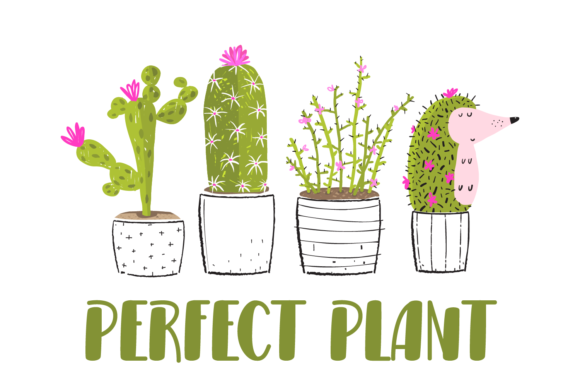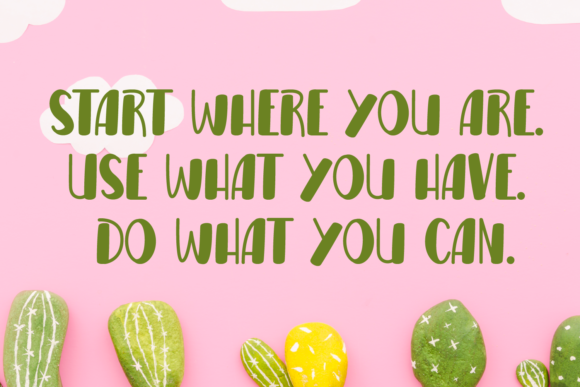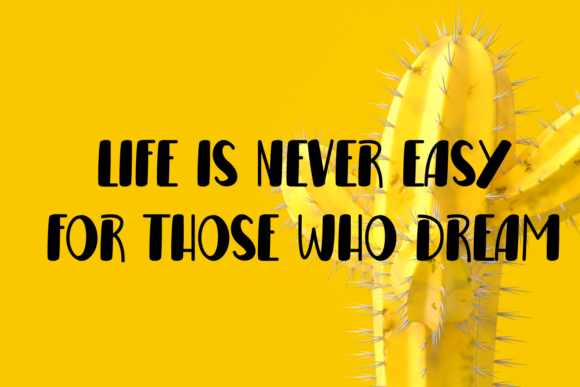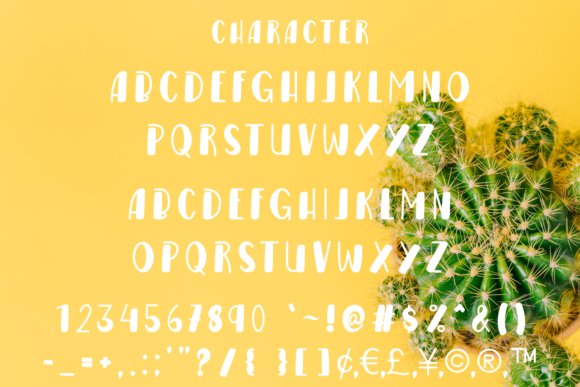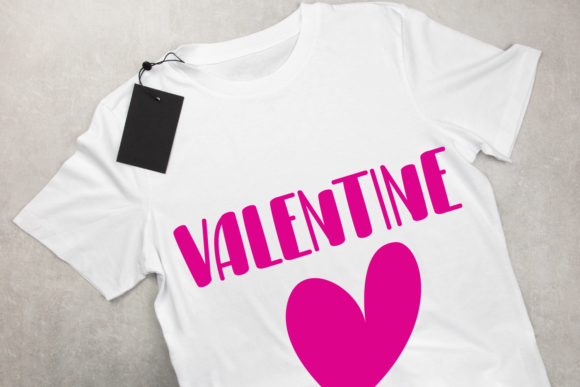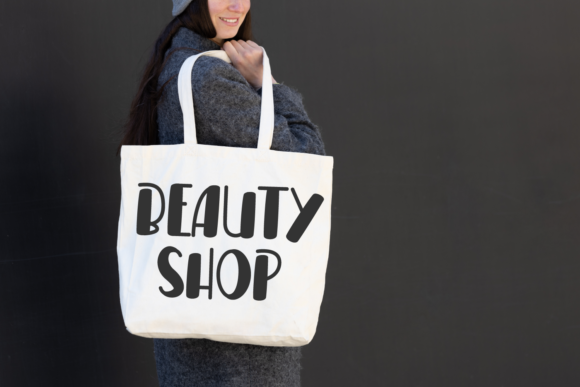
Cactus Morning Font: The Perfect Addition to Your Design Arsenal
Are you tired of using the same old fonts in your designs? Look no further than Cactus Morning Font, a fun, bubbly, and cool looking display font that’s sure to add a touch of playfulness and authenticity to your work. In this article, we’ll dive into the world of Cactus Morning Font and explore its features, benefits, and uses, particularly in children-themed designs.
What is Cactus Morning Font?
Cactus Morning Font is a display font designed to make a statement. Its unique and quirky style embodies the carefree spirit of a sunny morning, making it perfect for designs that require a playful and cheerful touch. The font’s bold and bubbly appearance is sure to grab attention and leave a lasting impression on your audience.
Key Features of Cactus Morning Font
- Fun and Playful: Cactus Morning Font is designed to bring a smile to your audience’s face. Its fun and playful style makes it perfect for children-themed designs, such as kids’ party invitations, educational materials, and more.
- Bold and Bubbly: The font’s bold and bubbly appearance makes it perfect for headlines, titles, and other display text.
- Authentic: Cactus Morning Font has a genuine and authentic feel to it, making it perfect for designs that require a personal touch.
- Versatile: The font is versatile and can be used in a variety of design projects, from digital to print.
Benefits of Using Cactus Morning Font
Using Cactus Morning Font in your designs can have several benefits, including:
- Adding a Touch of Whimsy: The font’s playful style can add a touch of whimsy to your designs, making them more engaging and fun.
- Standing Out from the Crowd: Cactus Morning Font’s unique style makes it perfect for designers who want to stand out from the crowd and create something truly memorable.
- Perfect for Children-Themed Designs: The font’s playful and cheerful style makes it perfect for children-themed designs, such as kids’ party invitations, educational materials, and more.
Using Cactus Morning Font in Your Designs
Cactus Morning Font is perfect for a variety of design projects, including:
- Kids’ Party Invitations: The font’s playful style makes it perfect for kids’ party invitations, adding a touch of fun and whimsy to your design.
- Educational Materials: Cactus Morning Font can be used in educational materials, such as worksheets, activity sheets, and more.
- Digital Designs: The font can be used in digital designs, such as social media graphics, blog posts, and more.
- Print Designs: Cactus Morning Font can be used in print designs, such as brochures, flyers, and more.
Tips for Using Cactus Morning Font
Here are some tips for using Cactus Morning Font in your designs:
- Pair it with Bright Colors: Cactus Morning Font looks perfect when paired with bright colors, making it perfect for children-themed designs.
- Use it as a Display Font: The font is designed to be used as a display font, making it perfect for headlines, titles, and other display text.
- Experiment with Different Sizes: Cactus Morning Font can be used in a variety of sizes, from small to large, making it perfect for a range of design projects.
Cactus Morning Font is a fun, bubbly, and cool looking display font that’s perfect for children-themed designs. Its playful and authentic style makes it perfect for adding a touch of whimsy to your designs. With its versatility and range of uses, Cactus Morning Font is a great addition to any designer’s arsenal.